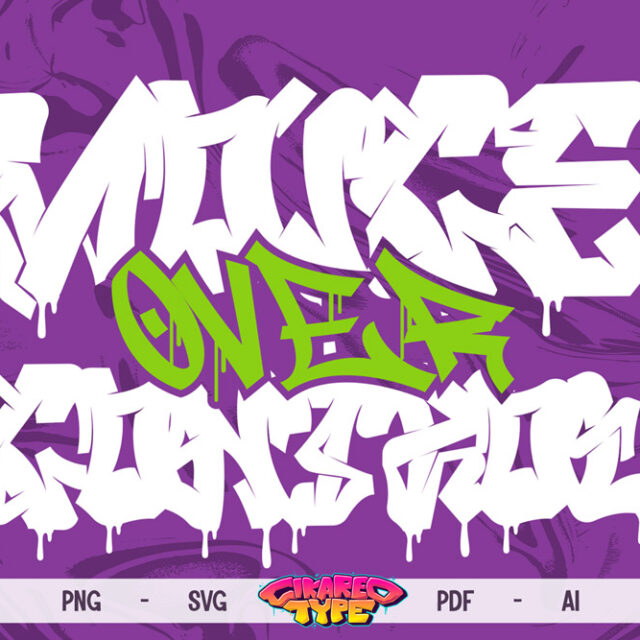
About Voice Over Control
Graffiti is raw, fearless, and dripping with attitude. With our Voice Over Control – Graffiti Drip Style Vector Design, you get a bold piece of artwork that captures the true essence of street culture. Built with expressive graffiti strokes, powerful dripping effects, and rebellious composition, this design is perfect for creators who want to add urban authenticity and bold energy to their projects.
Graffiti has always been the art of control and rebellion—voice over control reflects the idea of taking back power and expressing individuality. This graffiti drip style design amplifies that message, giving you an artwork that’s not only visually stunning but also deeply symbolic.
✔ Authentic graffiti drip style with raw street culture vibes
Designers love the Voice Over Control Vector because it’s more than just a graphic—it’s a statement piece. The dripping style and bold graffiti lettering give it an edge that resonates with youth culture and street authenticity.
Unlike stock graphics that feel generic, this graffiti drip style vector captures the raw, rebellious spirit of urban art—making it perfect for projects that need to connect with bold, fearless audiences.
Font in Use
Want to amplify your design? Pair this vector with powerful graffiti fonts. See Font in Use examples with Melttrax Graffiti Font Together, they create urban visuals that demand attention in apparel, branding, and posters.
Graffiti culture continues to thrive in 2025—shaping fashion, music, and social media trends. The graffiti drip style vector aesthetic is more popular than ever, representing both rebellion and creativity. Owning the Voice Over Control Graffiti Vector means staying ahead of trends and offering designs that resonate with modern audiences.